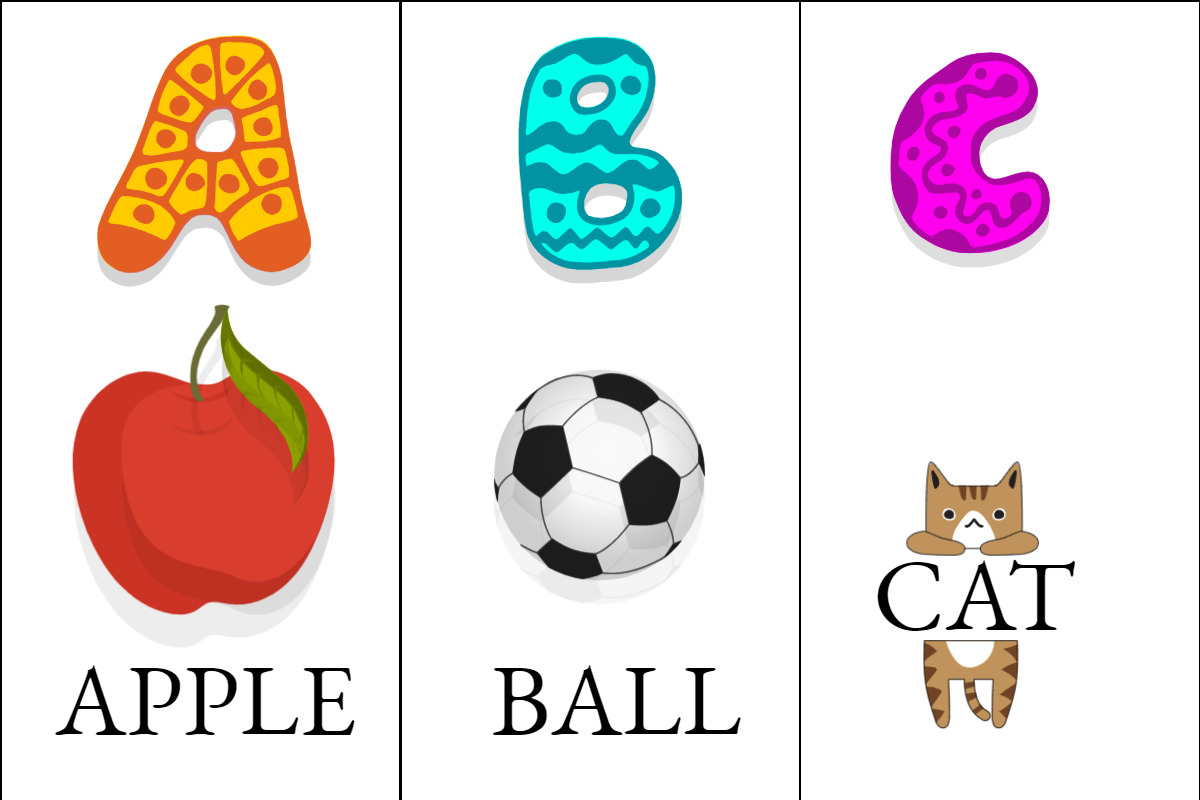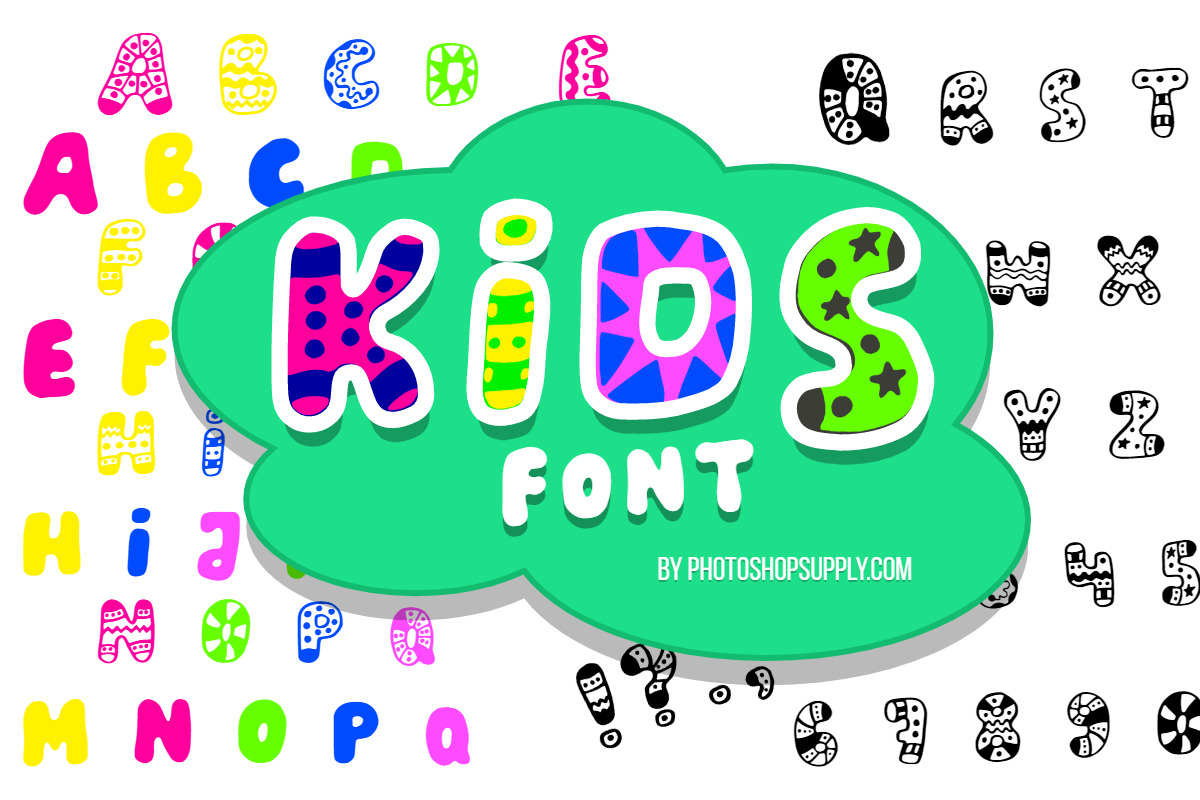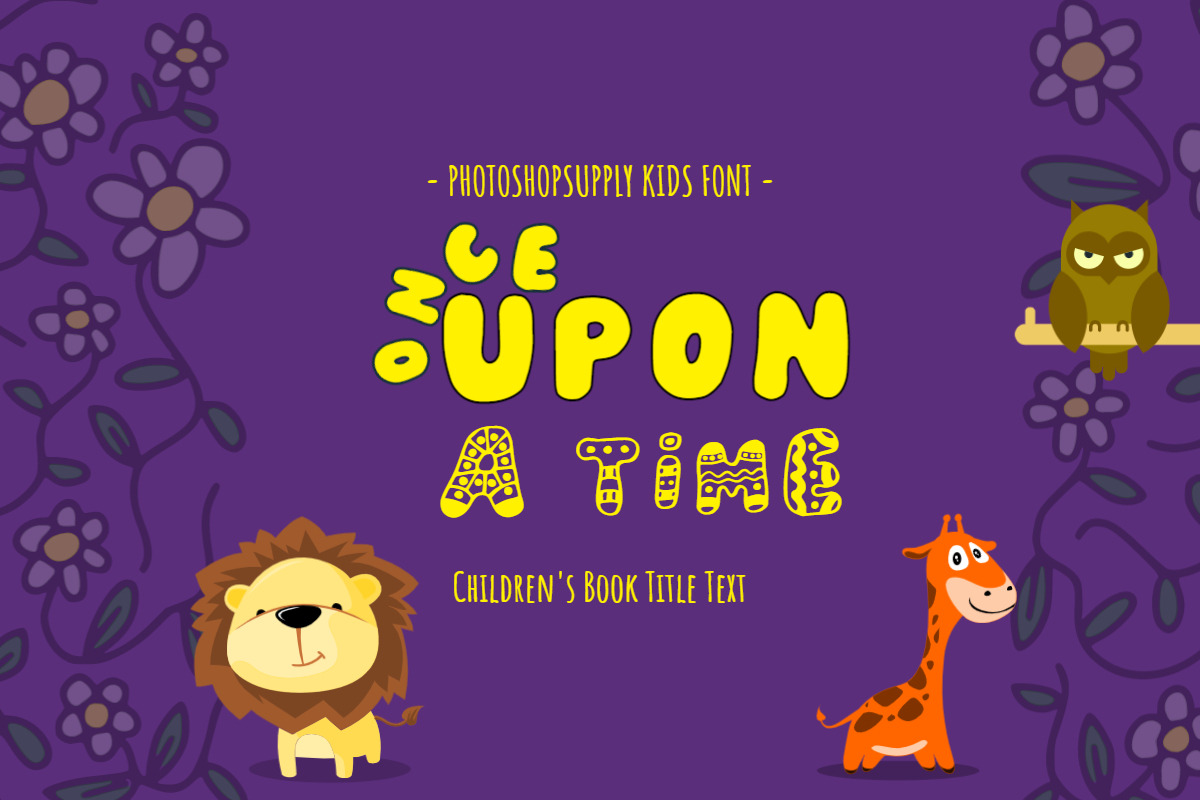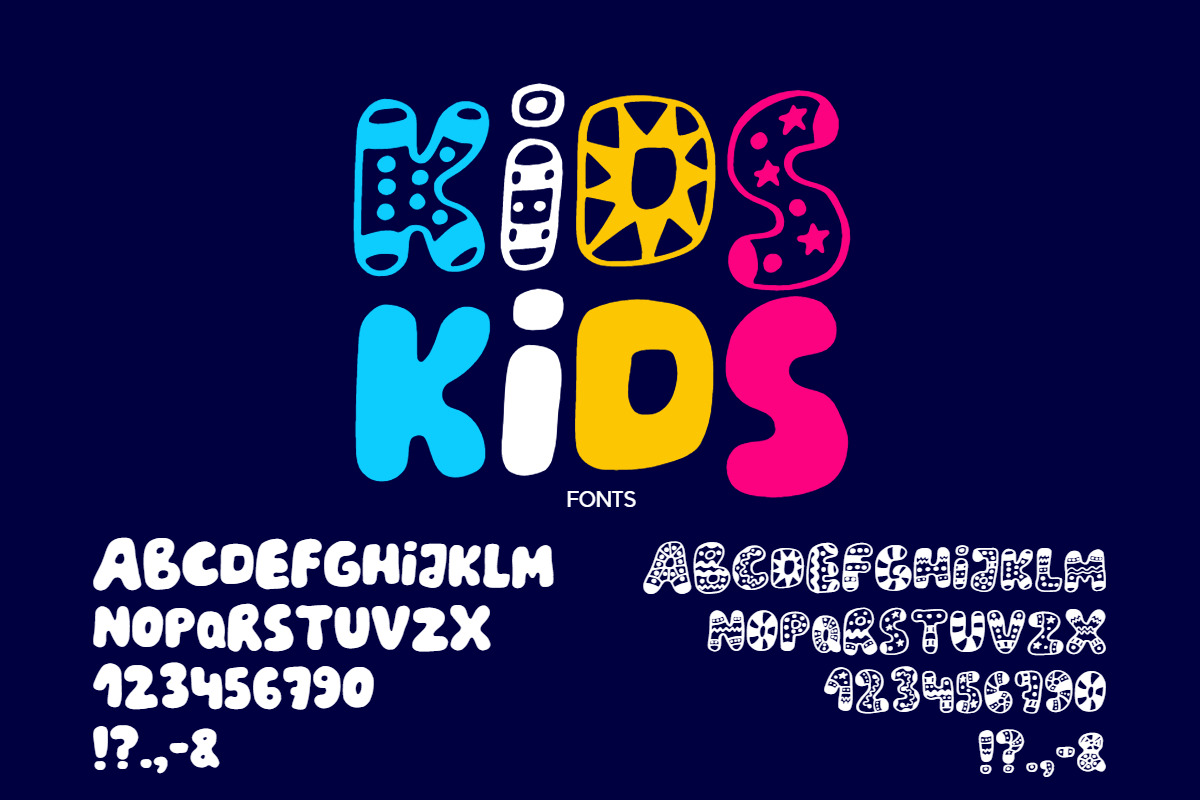
Kids Font
This beautiful font for kids can be used in many graphic designs for children:
- fonts for children's book
- alphabet cards
- kids t-shirts
- kids party posters
- kids labels for school
- kids name tags
- etc.
The package contains 2 different kids fonts that can be used separately or stacked in layers to get beautiful designs for kids.
- Add one text layer with the "PhotoshopSupplyKids1" (background filled font). Choose color 1 for the font.
- Add a second text layer with the "PhotoshopSupplyKids2" (outline doodle font). Choose color 2 for the font.